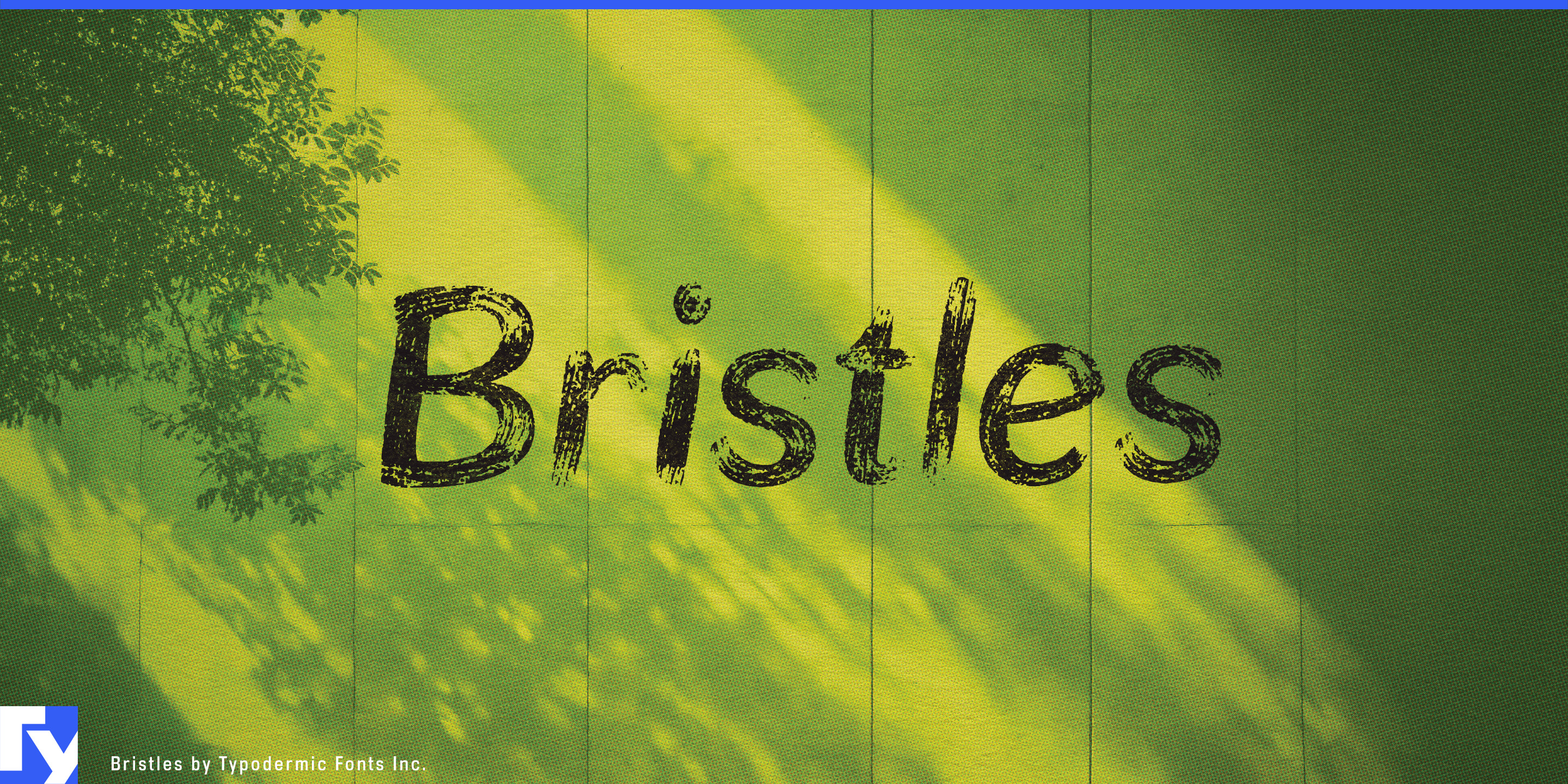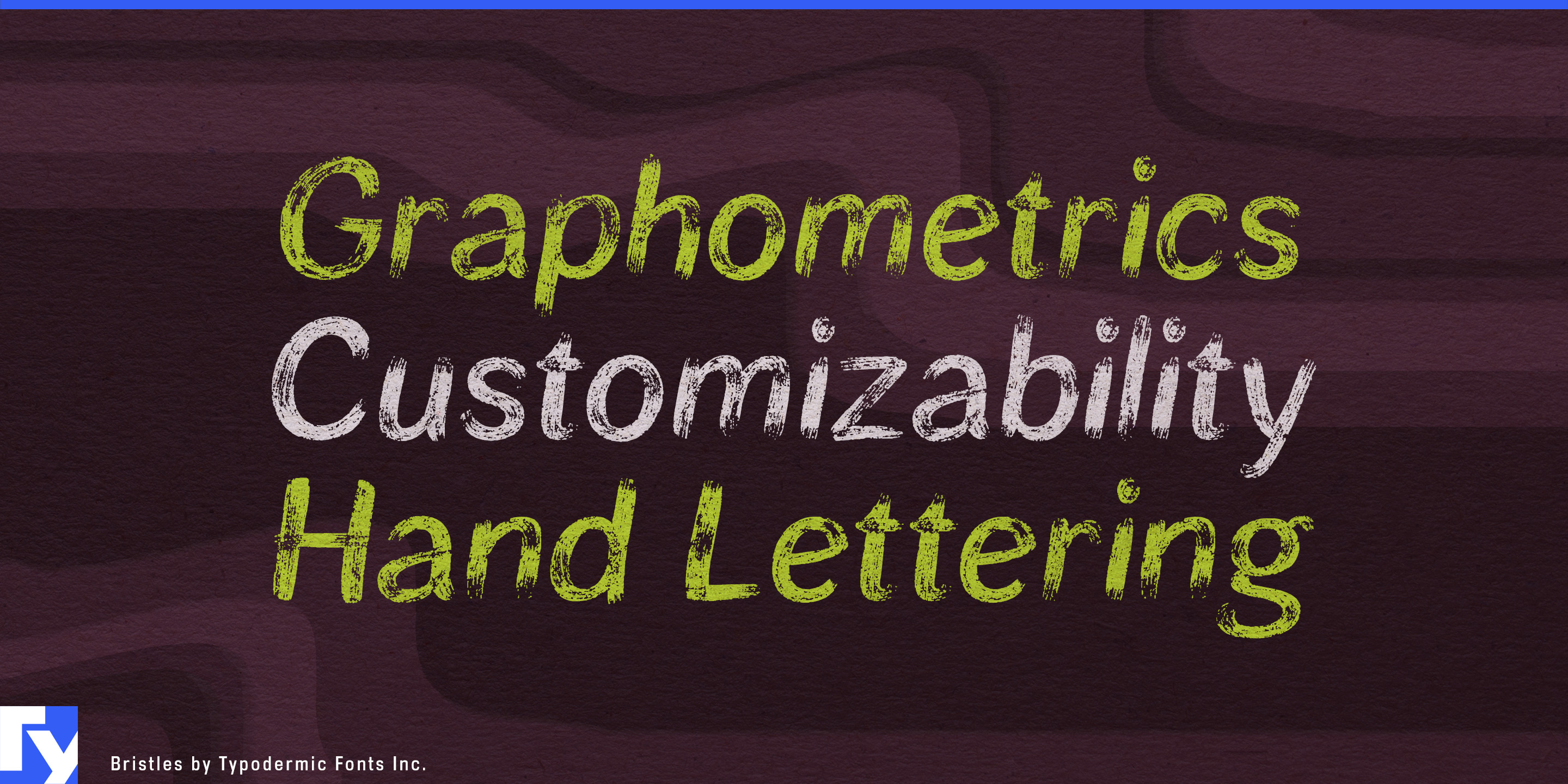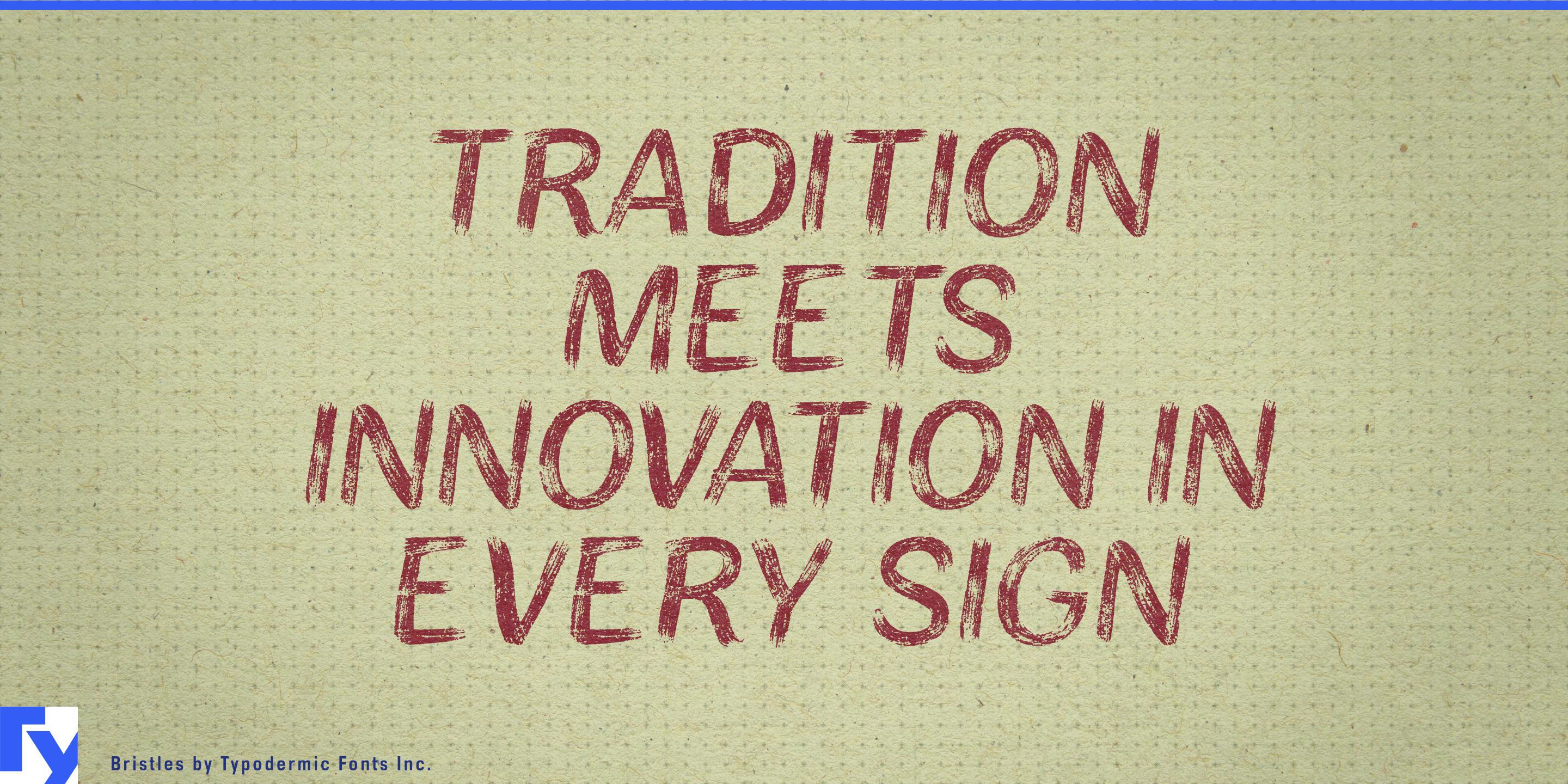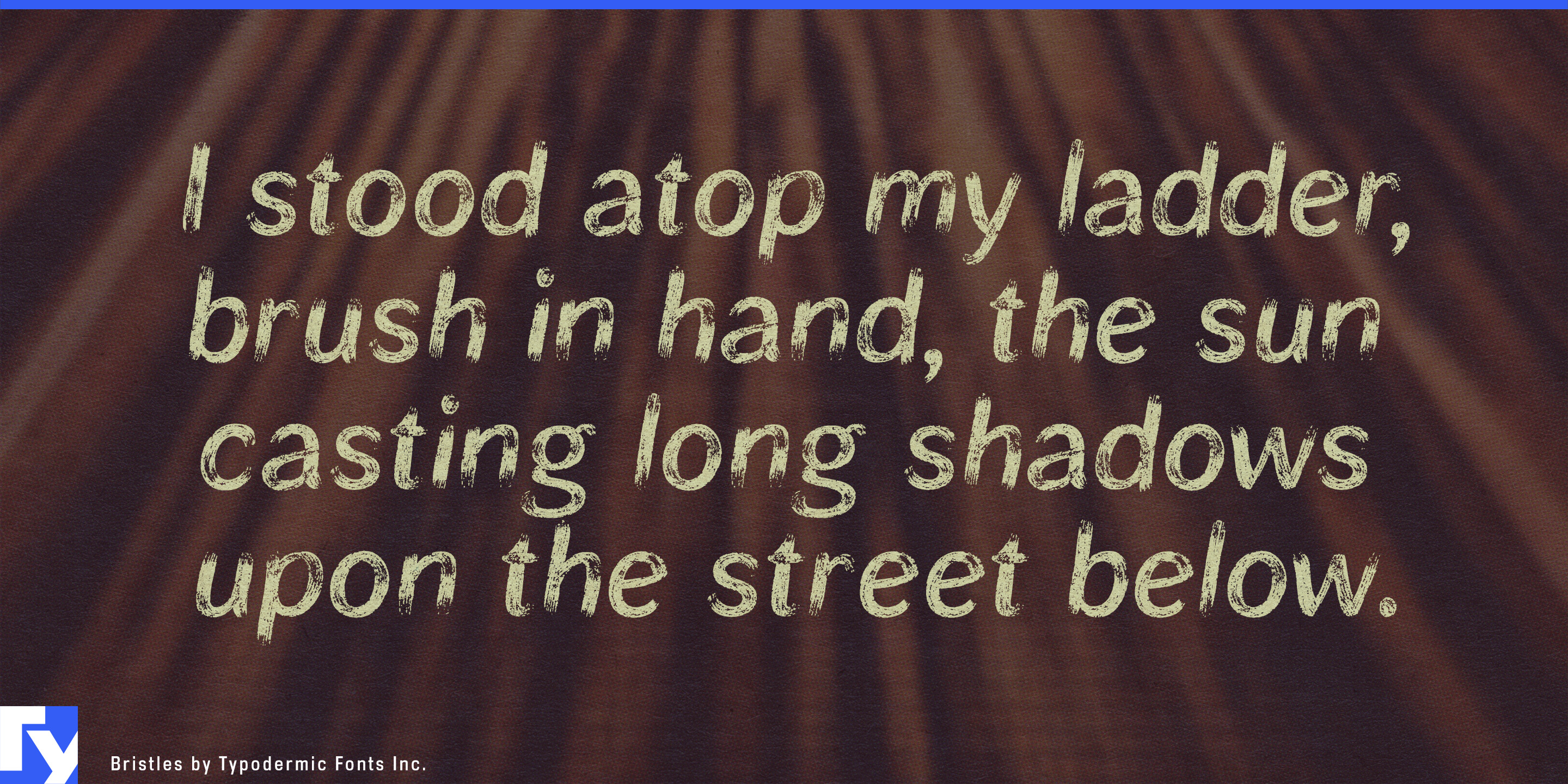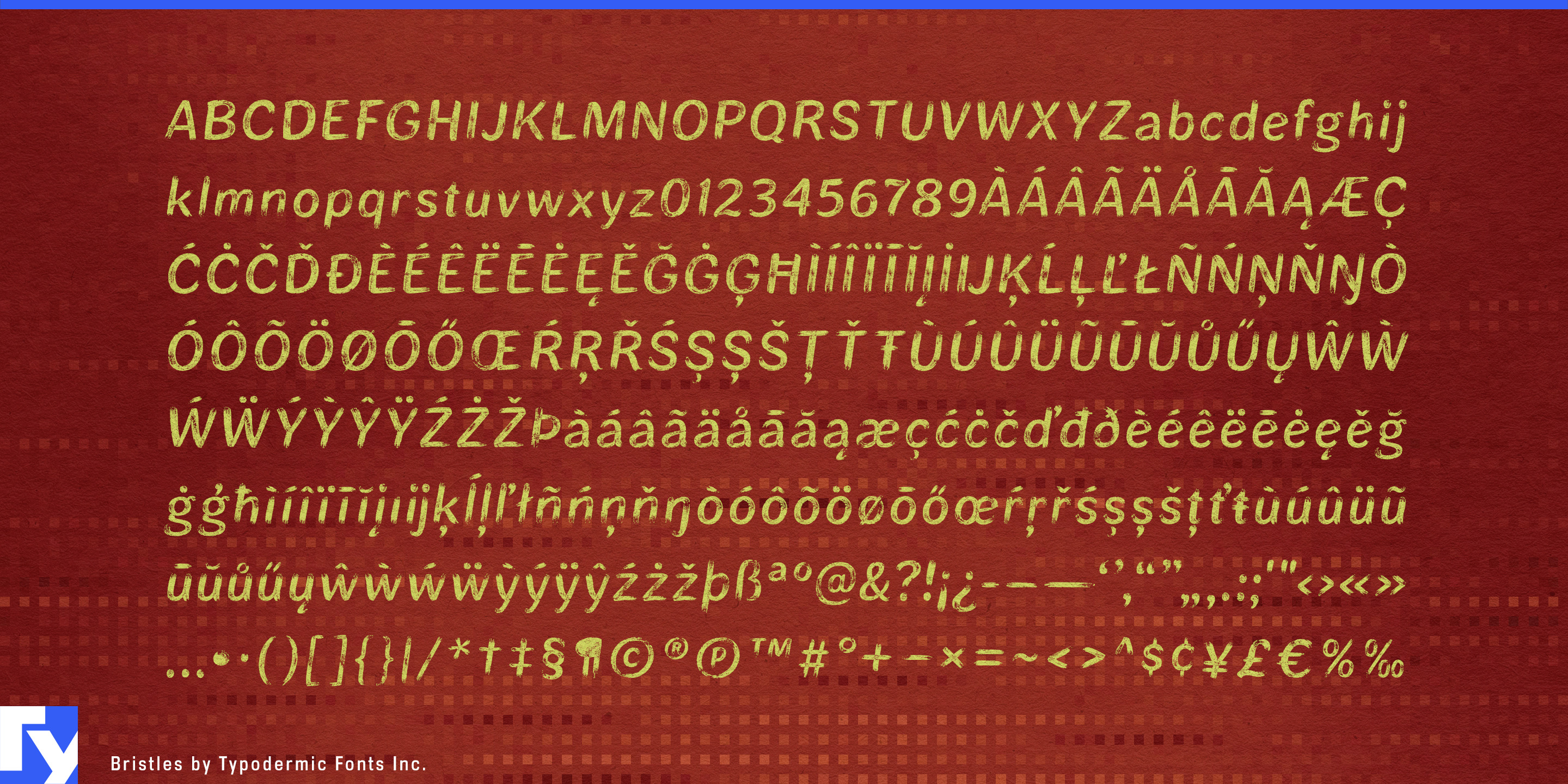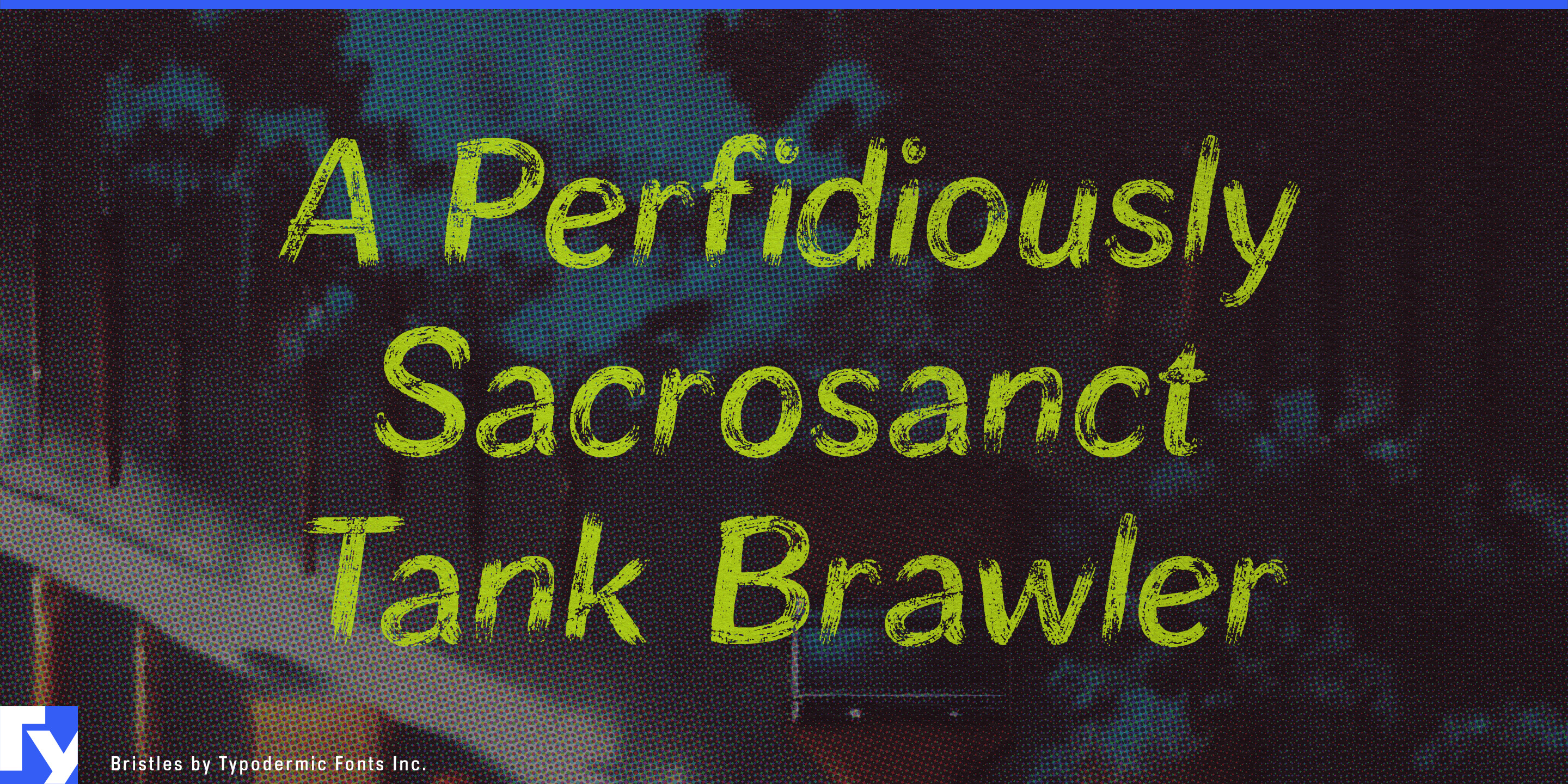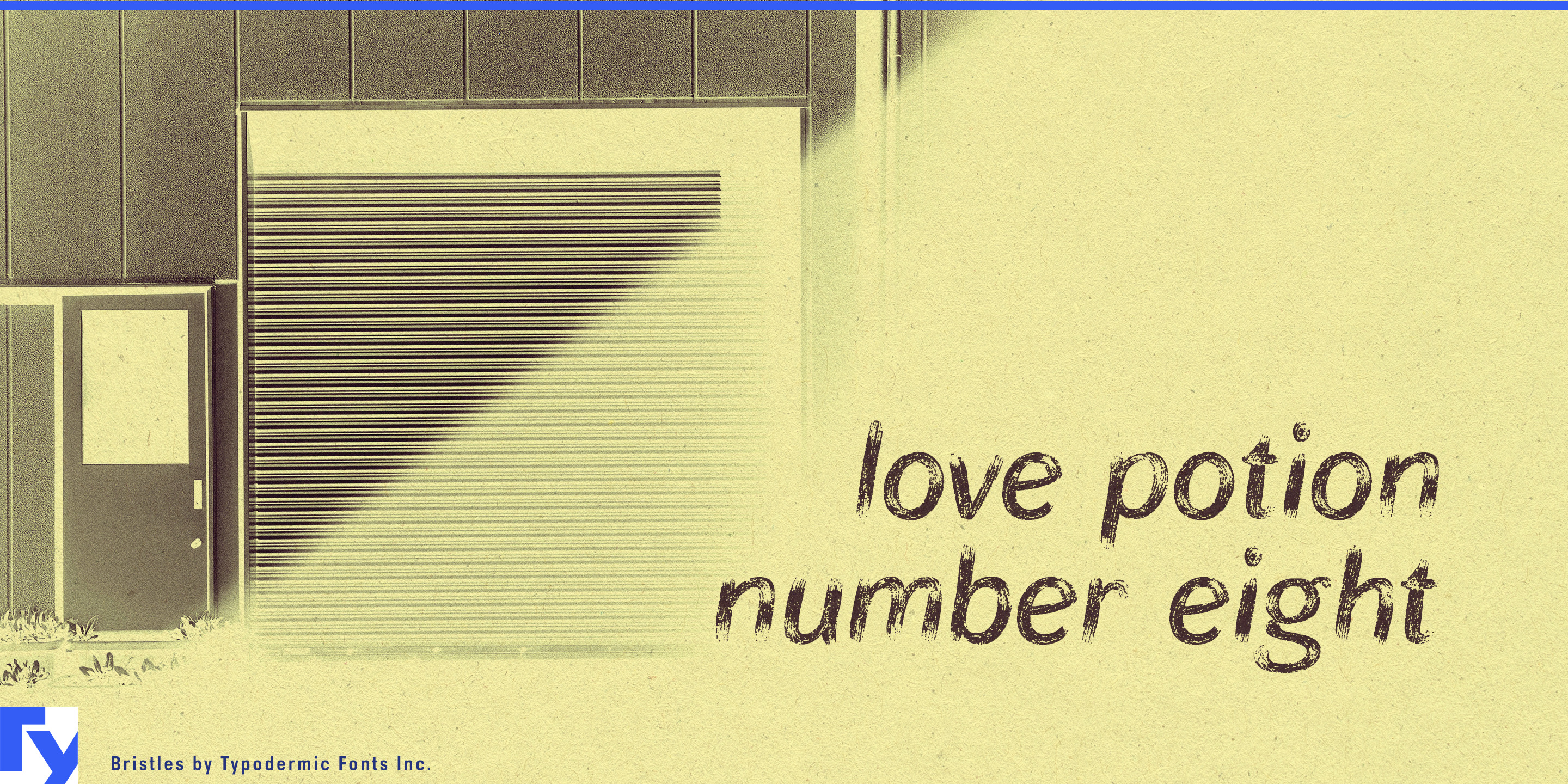
Bristles
Discover Bristles, a typeface that captures the raw, unfiltered essence of hand-painted signage. This sun-bleached, weathered sans-serif font brings a touch of genuine character to your designs, as if each letter has endured decades of exposure to the elements.
Bristles’ unique charm lies in its imperfect beauty. The wispy, textured letterforms appear to barely cling to the surface, evoking the image of paint that has weathered countless seasons. This delicate balance between legibility and decay gives your message a voice of authenticity that mass-produced fonts simply can’t match. Each character in Bristles tells its own story, reminiscent of the skilled hand of a veteran sign painter. The font’s letter pair ligatures, available in OpenType-savvy applications, break up repetitive characters, enhancing the natural, hand-crafted feel of your text. This attention to detail ensures that your message not only catches the eye but also resonates with a sense of time-honored craftsmanship.
Bristles speaks the language of authenticity across cultures, supporting most Latin-based European writing systems. From rustic café menus in Paris to vintage-inspired packaging in Stockholm, Bristles lends an air of nostalgic genuineness to any project. Choose Bristles when you want your designs to feel lived-in, loved, and full of stories. It’s more than a font—it’s a testament to the beauty of imperfection and the passage of time. Let Bristles be the voice of your next project, bringing a touch of weathered wisdom to a world often too polished for its own good.
In a landscape of pristine digital typefaces, Bristles stands out as a beacon of organic authenticity. Embrace its sun-faded charm, and watch as your typography takes on a life of its own—one beautifully imperfect brushstroke at a time.